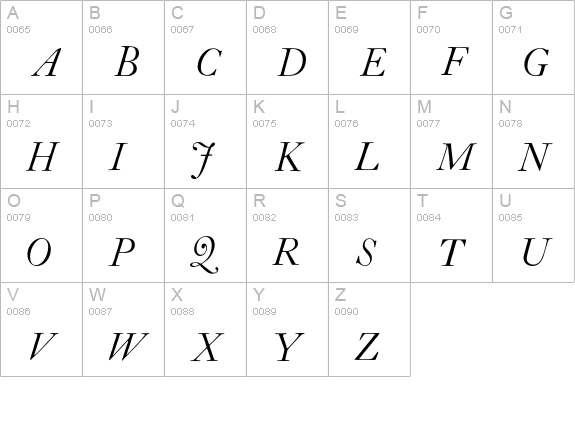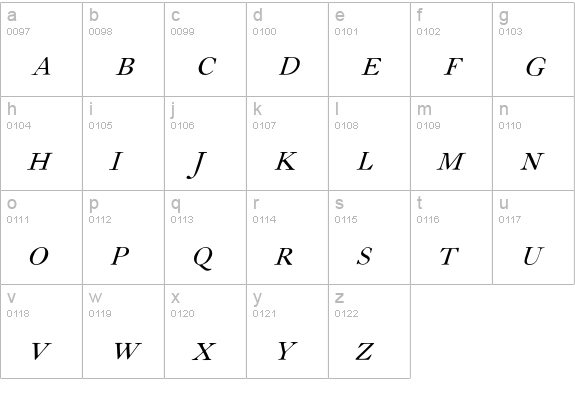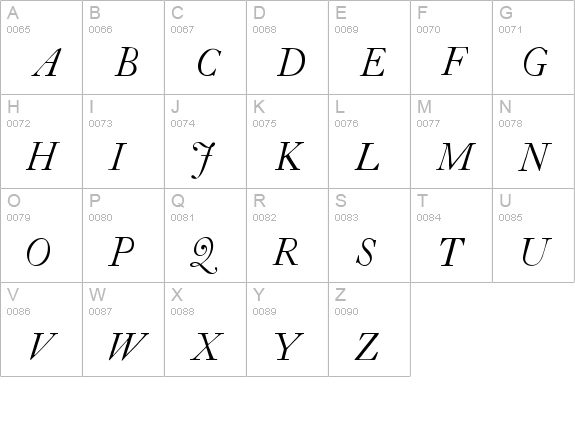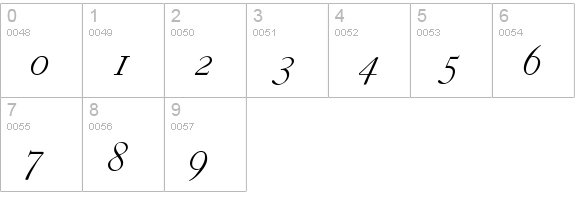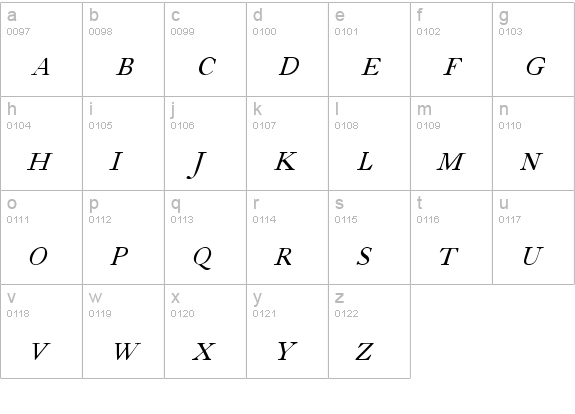
CaslonH-SC-Italic Font Details
CaslonH-SC-Italic is a distinctive, italic variant in the CaslonH typeface family \xE2\x80\x94 well suited to design and typography projects.
CaslonH-SC-Italic is a refined and elegant font that exudes sophistication and charm. Its delicate slant and graceful curves create a sense of timeless beauty, making it perfect for adding a touch of class to any design project. The italicized style of CaslonH-SC-Italic adds a sense of movement and fluidity, enhancing the overall visual appeal. What sets CaslonH-SC-Italic apart is not only its exquisite design but also its accessibility. This font is available for free download at FontsMarket.com, making it a valuable resource for designers, creatives, and typography enthusiasts looking to elevate their work with a touch of refined elegance. Whether you're working on a wedding invitation, a branding project, or a creative campaign, CaslonH-SC-Italic is sure to bring a touch of sophistication and style to your designs.